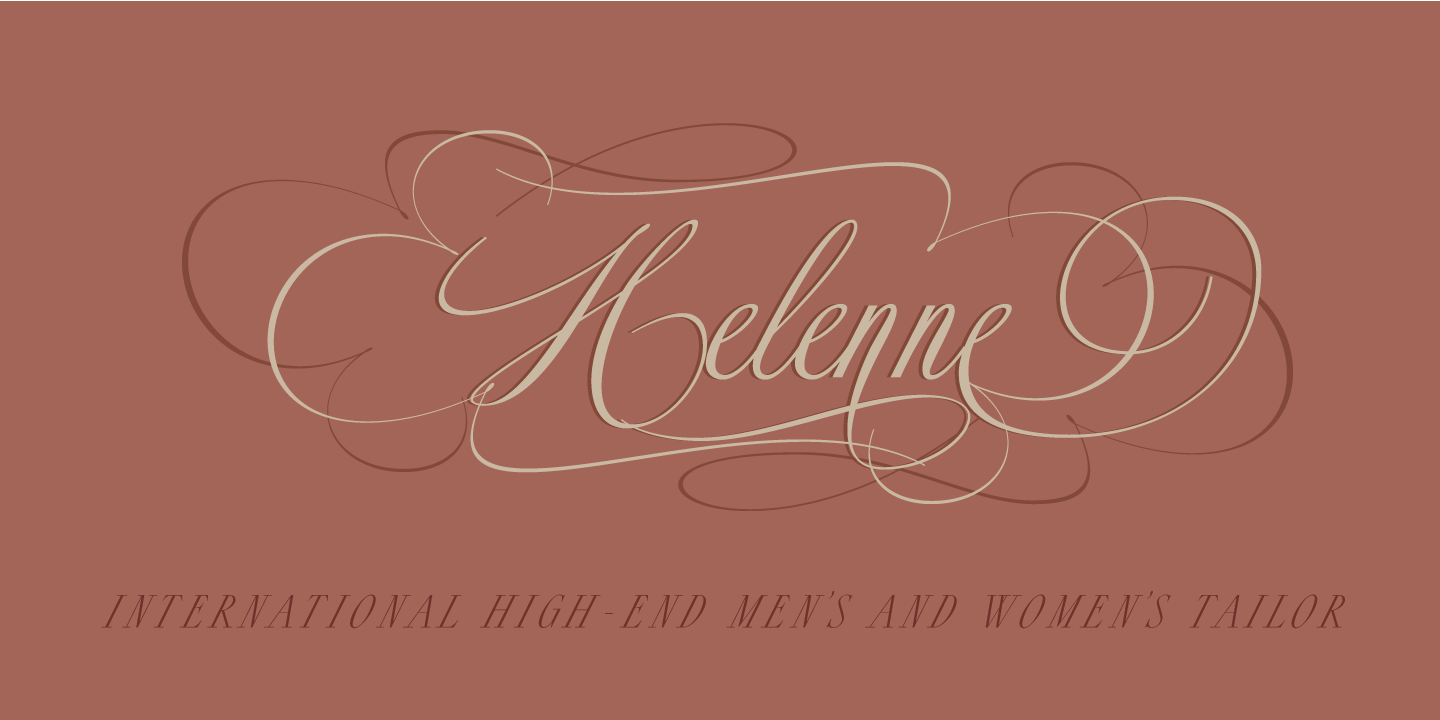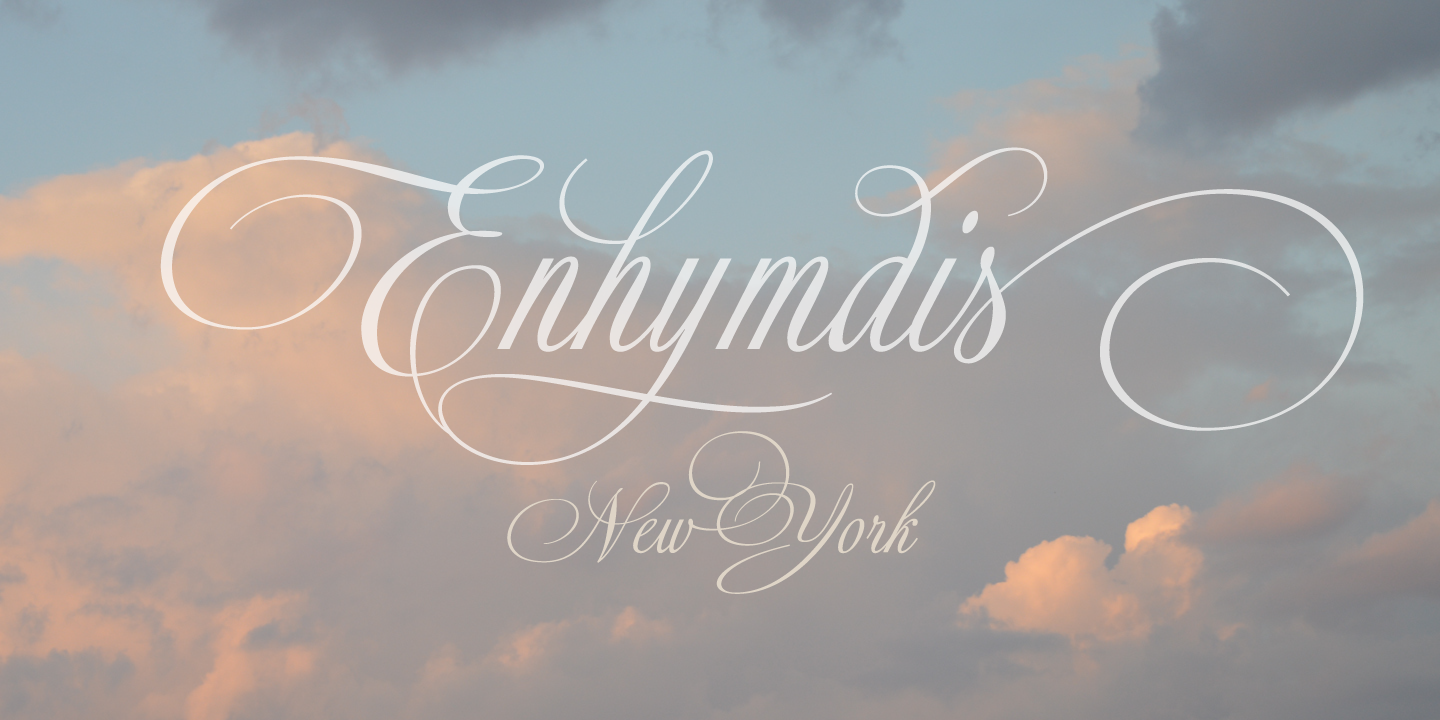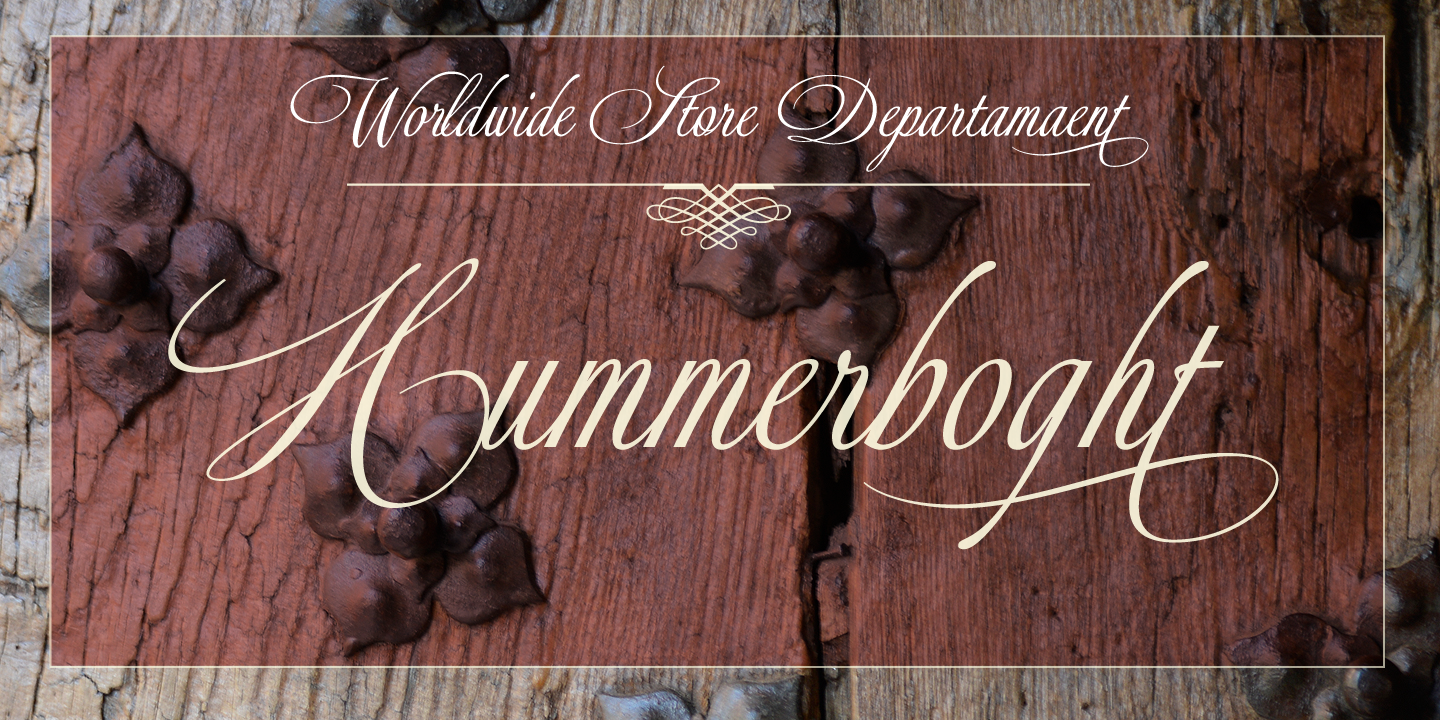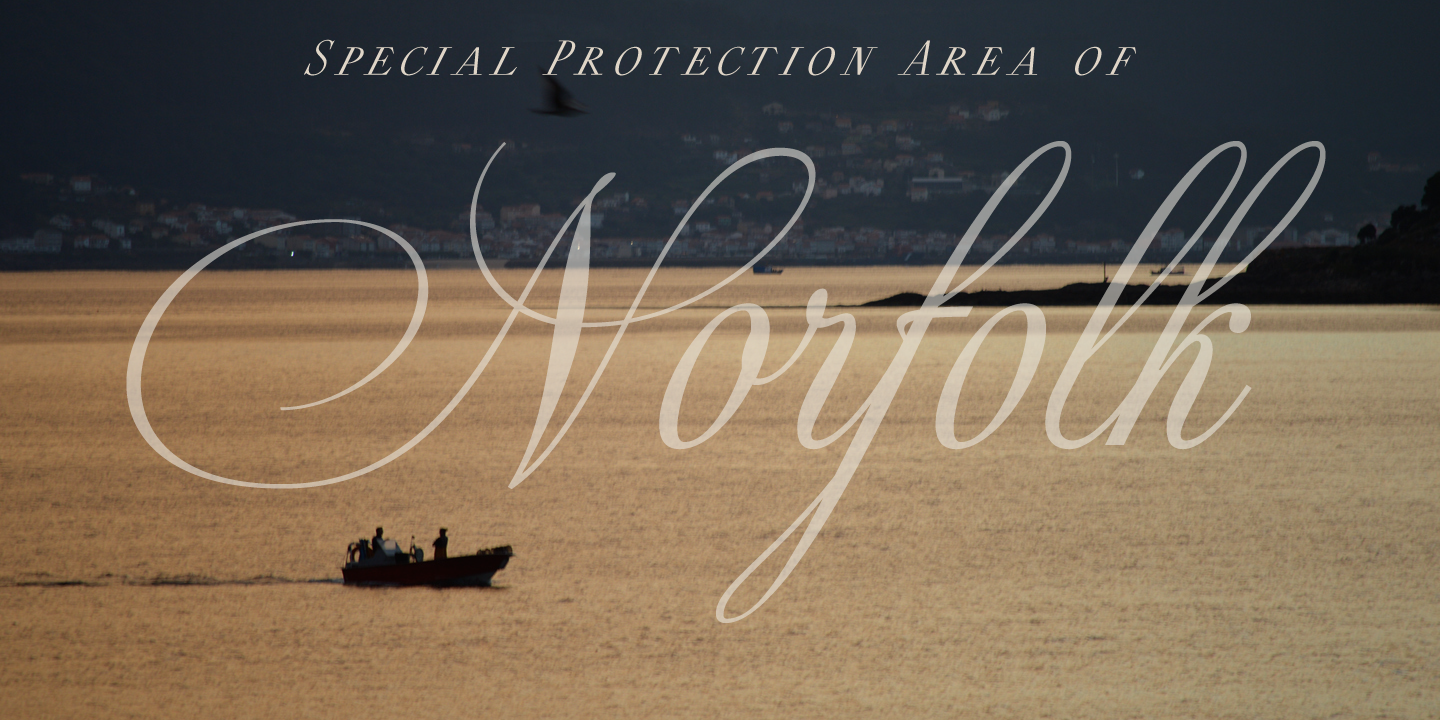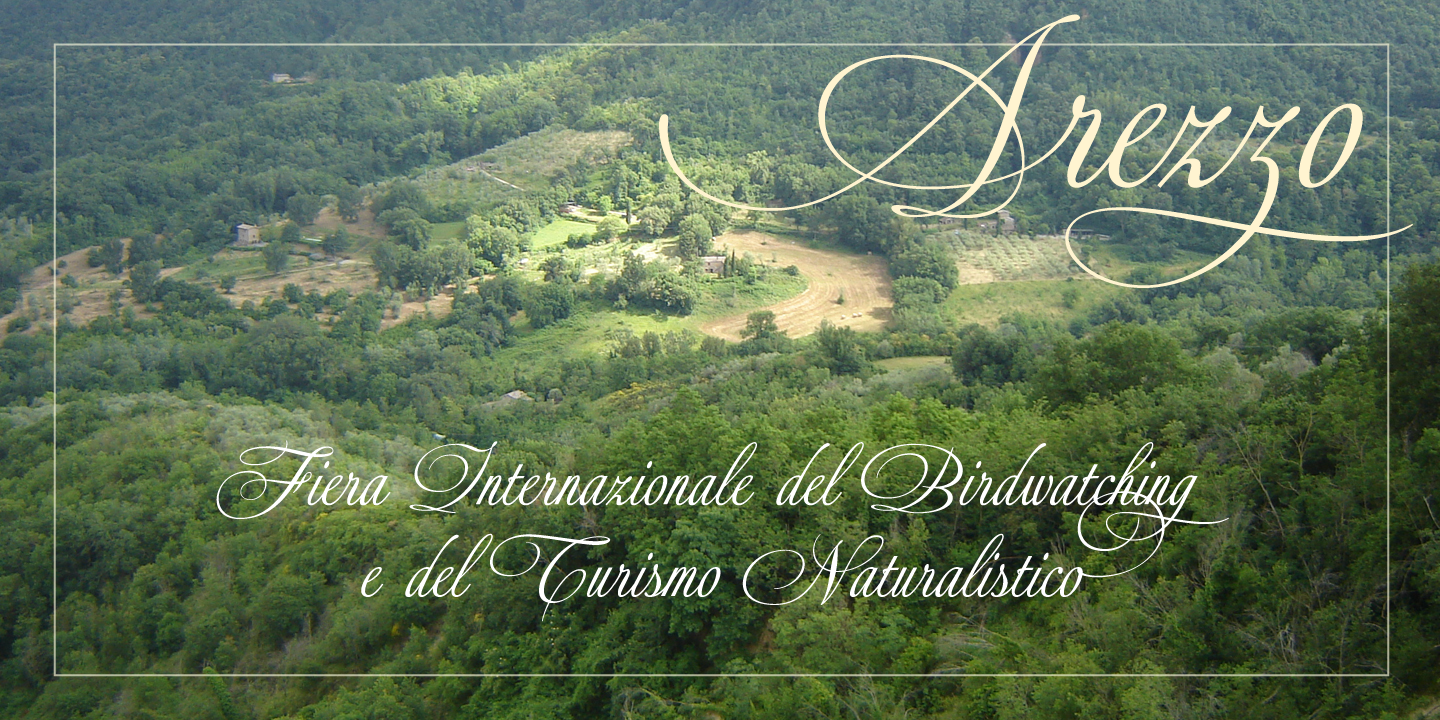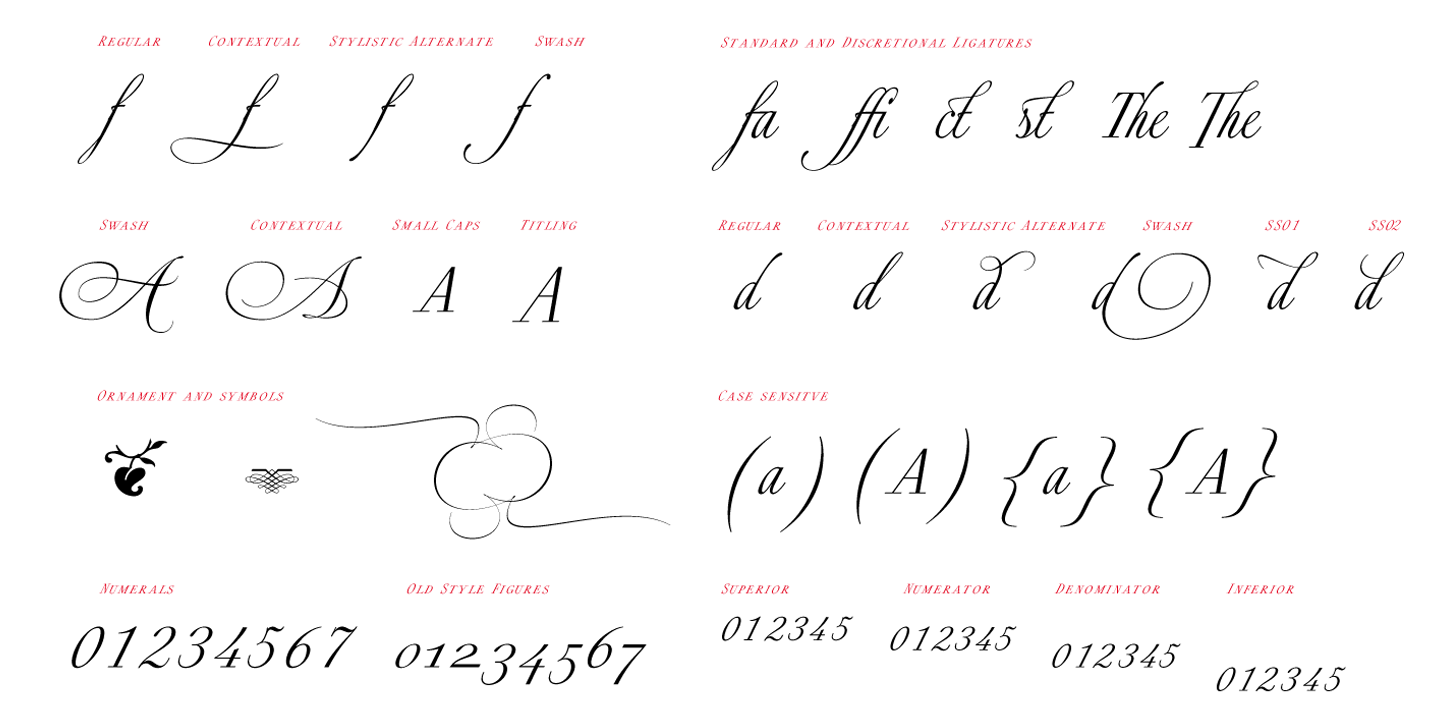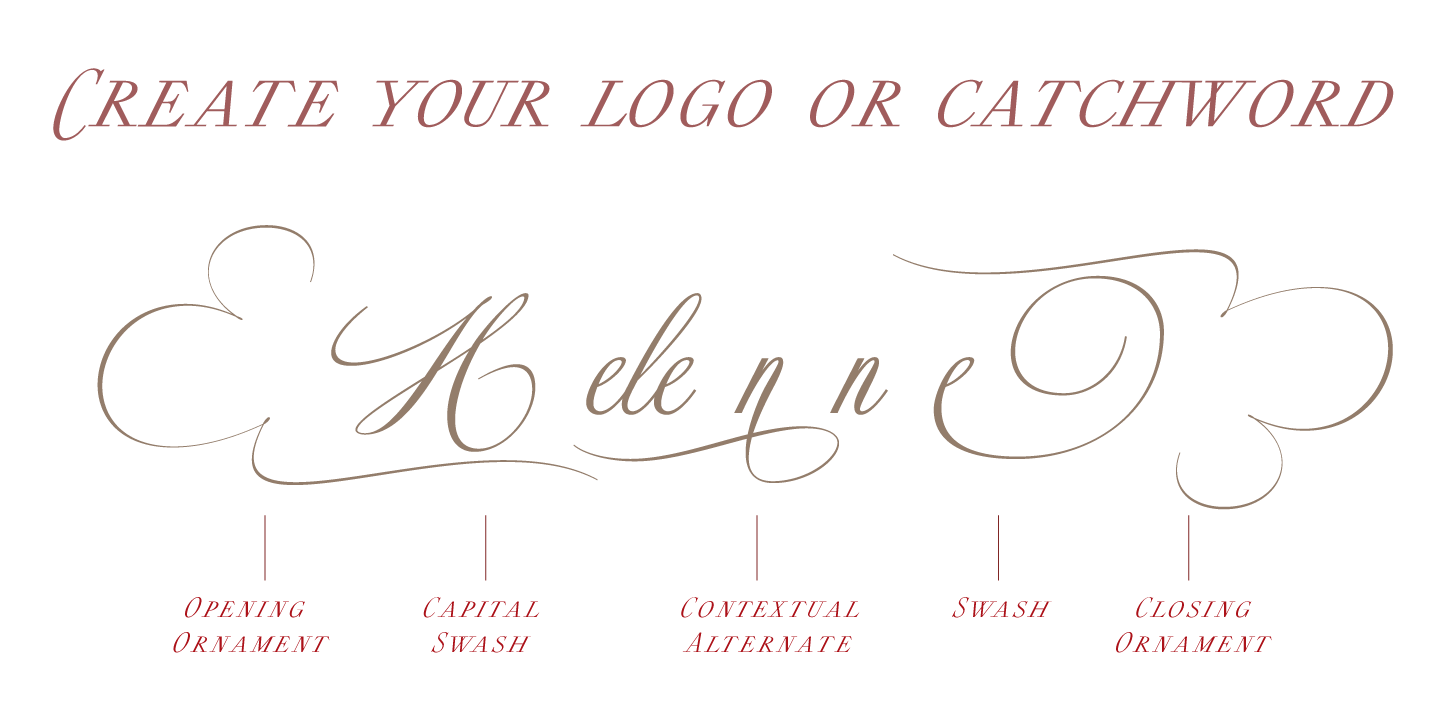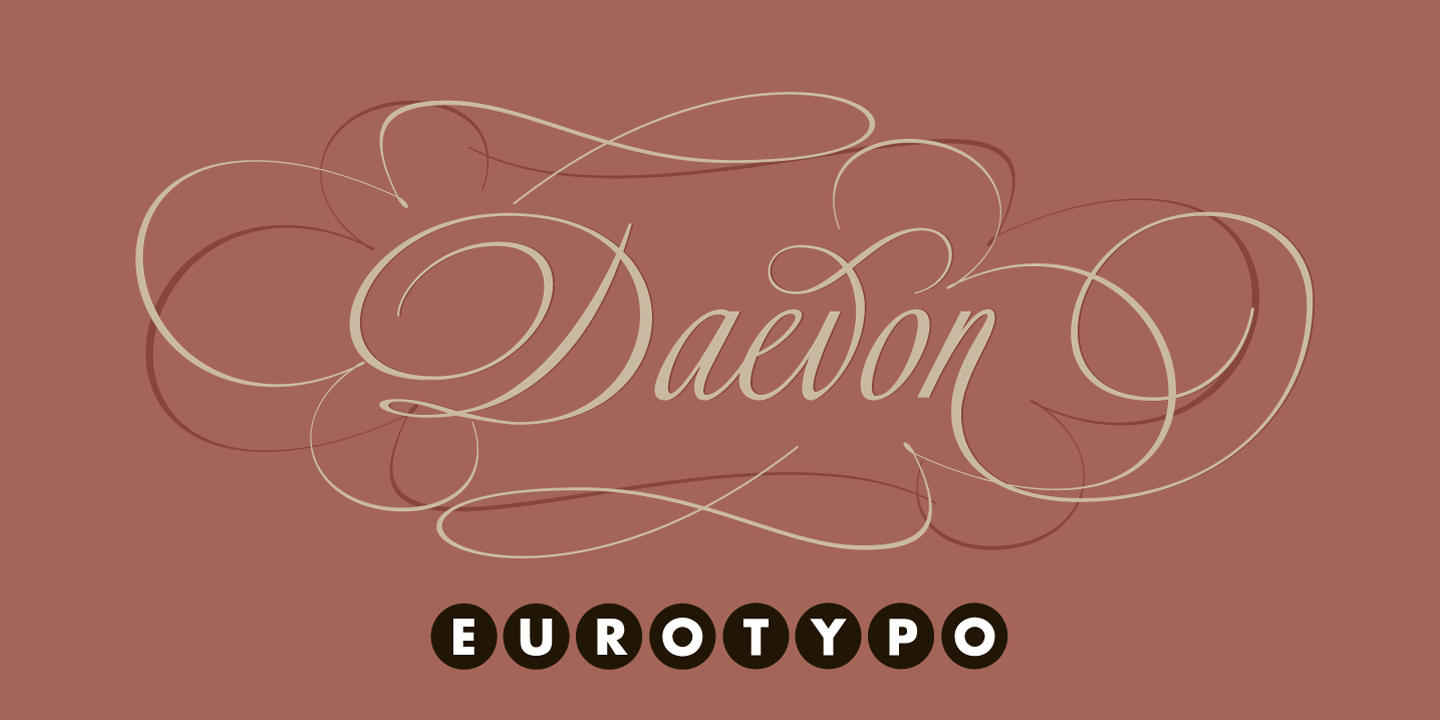
Daevon
Calligraphic Elegance
Daevon is an elegant and expressive calligraphic typeface inspired by the timeless beauty of handcrafted lettering. It seamlessly blends fluid movement with structured rhythm, creating a refined writing flow that offers both visual harmony and reading comfort.
Meticulous Craftsmanship
Each letterform has been meticulously drawn with a distinctive and well-balanced ductus, resulting in a typeface that conveys sophistication, personality, and artistic sensitivity. Daevon reinterprets classical calligraphy through a contemporary typographic lens, transforming traditional grace into a versatile digital font perfectly suited for modern design applications.
Extensive OpenType Features
The typeface features an extensive collection of OpenType functionalities, including standard and discretionary ligatures, stylistic and contextual alternates, expressive swashes, Oldstyle figures, and elegant titling letters. These features allow designers to craft dynamic, authentic, and highly customized typographic compositions with ease.
Multilingual Support
Daevon also includes a complete set of diacritics supporting Central European languages, expanding its usability for international and multilingual design projects.
Versatile Applications
Ideal for branding, editorial layouts, luxury packaging, invitations, certificates, book covers, logos, and high-end visual identities, Daevon brings the spirit of classical calligraphy into contemporary typography—offering a perfect balance between tradition, elegance, and modern design flexibility.